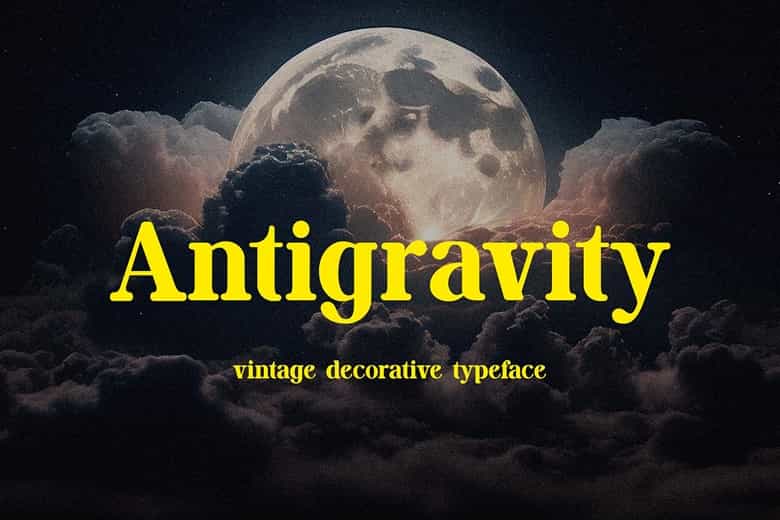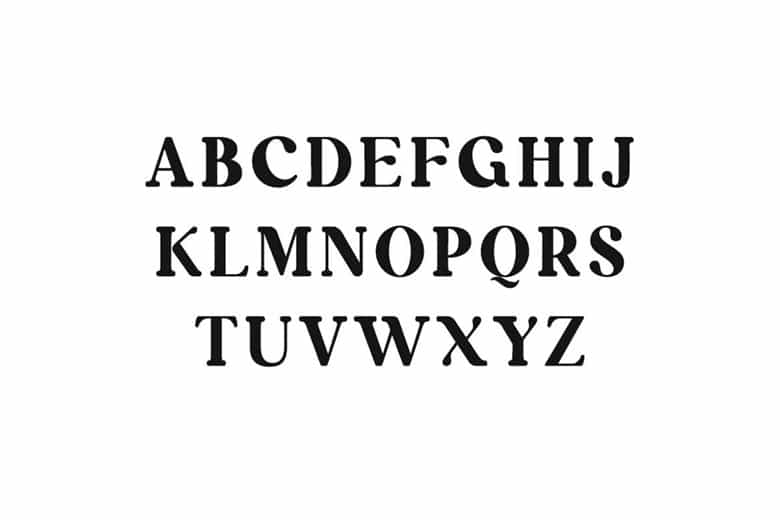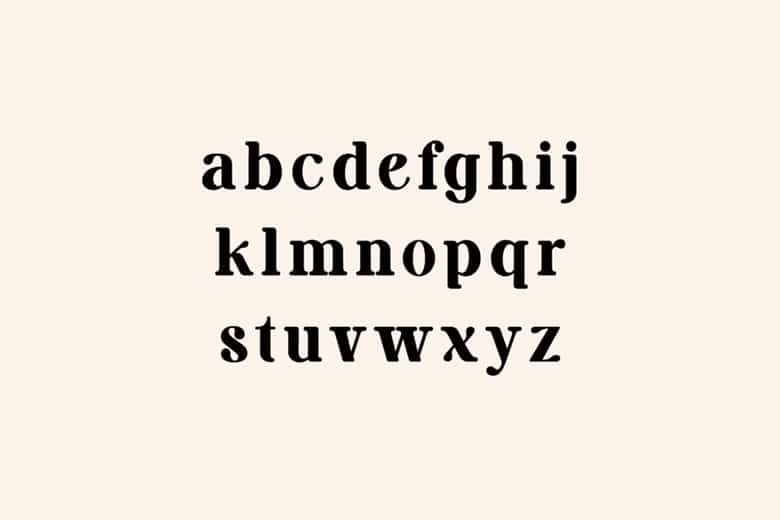
Antigravity is a vintage decorative serif font. It’s looks classic, elegant and stylish. This font is perfect for any kind of project from logo, wedding, quotes, magazine or book cover, website header, branding and many more.